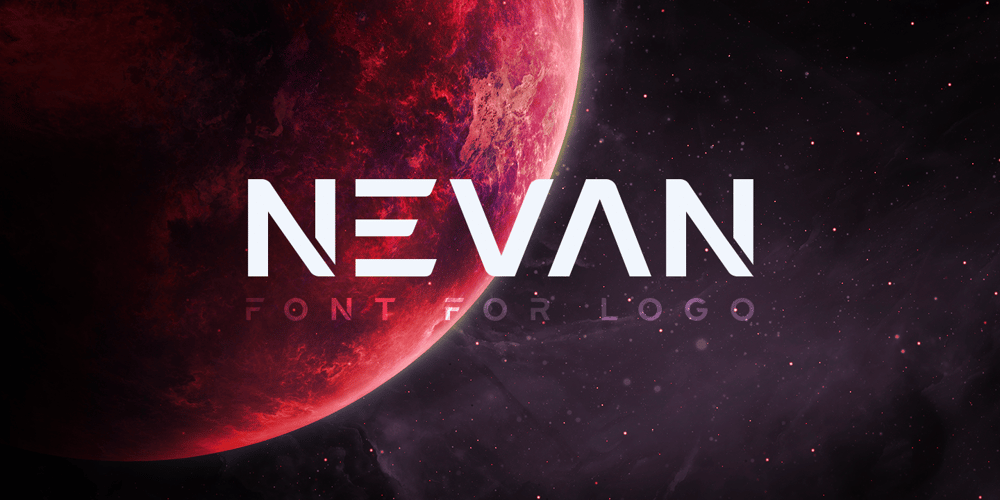
Nevan
Nevan font
Nevan Font Family was designed by Dadan Sukma Nurdiansyah and published by Dasukreation. Nevan contains 1 styles and family package options. Nevan is a geometric display font. It features all caps, stylistic alternates feature, plus supports multilingual languages. It’s perfect for logos, book covers, movie posters, games, and much more!Caps Only Fonts.